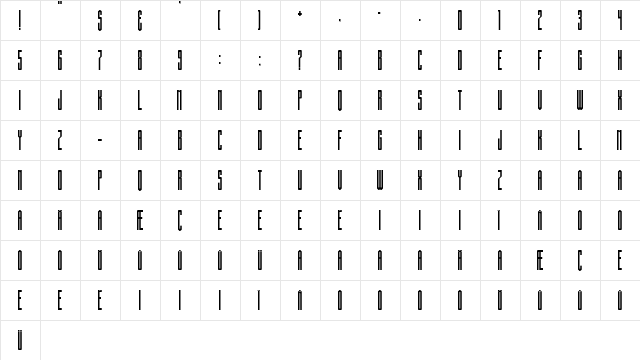
Building State Empire Regular
| Designer | imagex |
Design Context for Building State Empire Typeface
Building State Empire is a composed and adaptable typeface that performs quietly and consistently across a wide range of design contexts.
Pro Tip: Use Building State Empire in both headline and body roles to test its range before committing to a single application.